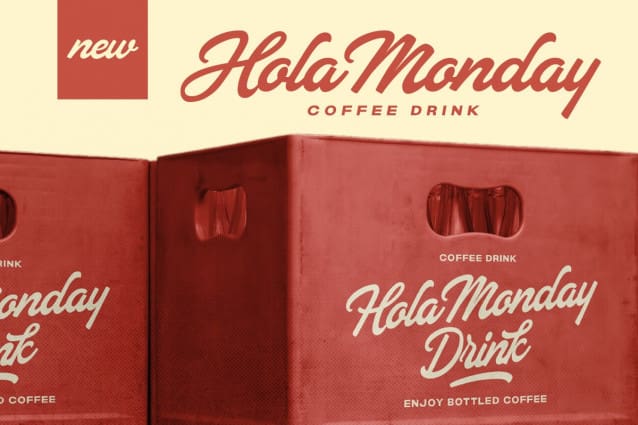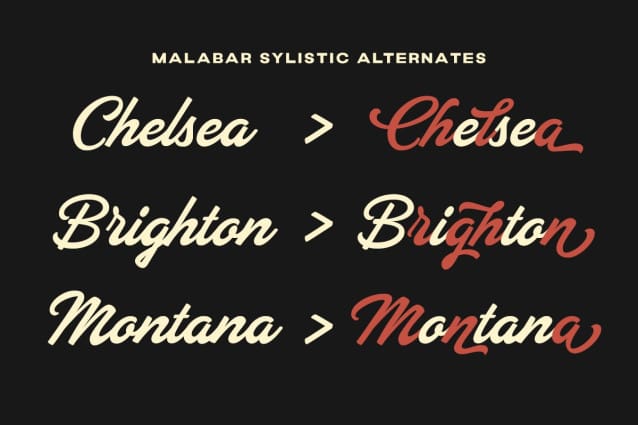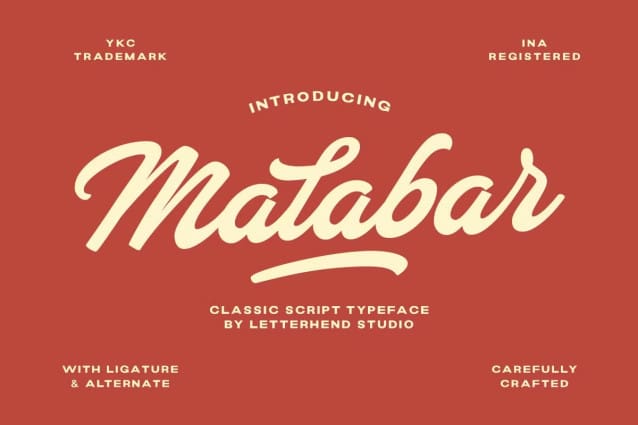
The Malabar Font
The Malabar Font is a carefully crafted script typeface designed for those who appreciate timeless aesthetics and effortless versatility. With its natural flow, bold strokes, and modern-vintage appeal, Malabar is perfect for logos, product labels, social media graphics, and stationery. The inclusion of ligatures and alternate characters ensures each design is as unique and expressive as your vision.